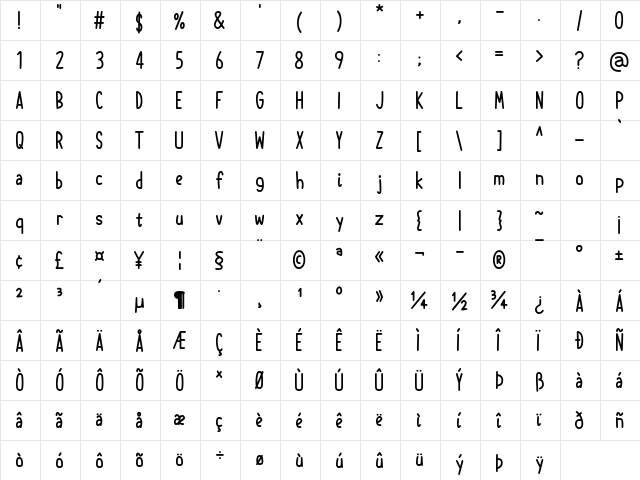
Organic Teabags Regular Font Preview
Organic Teabags Regular
Organic Teabags Regular Font Details
| Designer | Dan Johnston |
Design Context for Organic Teabags Typeface
Organic Teabags offers clean, dependable letterforms without strong stylistic allegiance, making it a practical choice for designers who need flexibility.